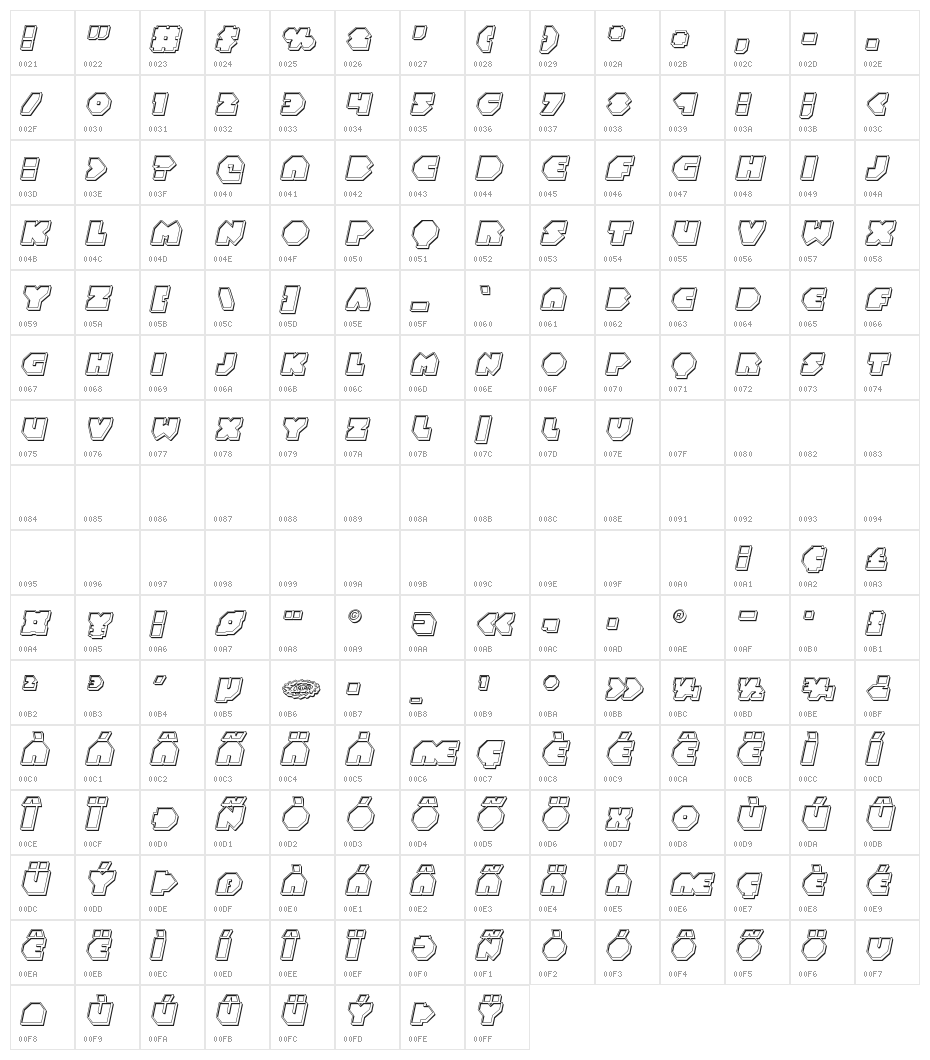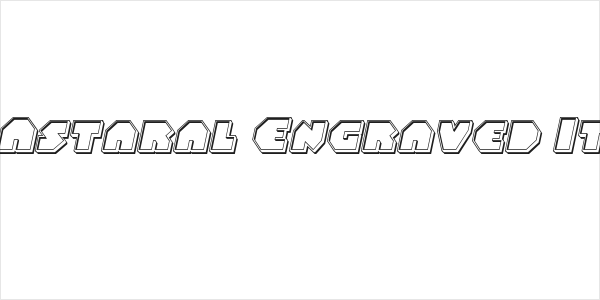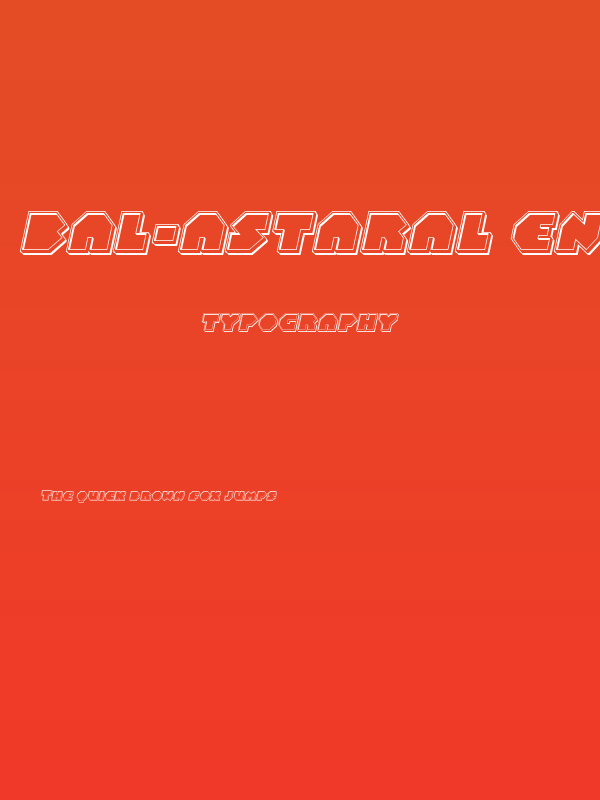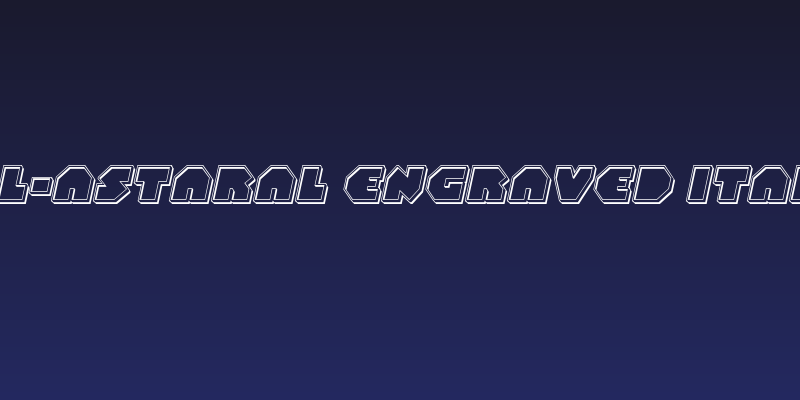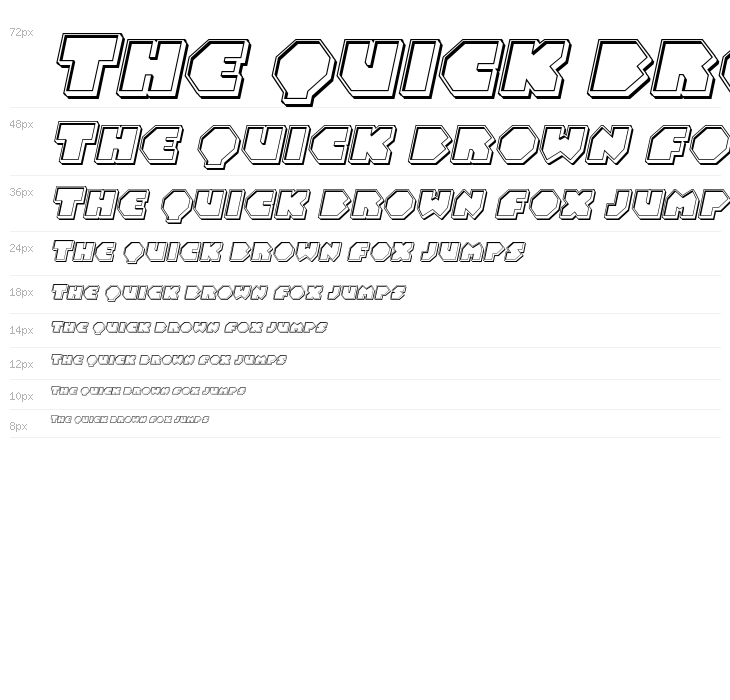
Bal-Astaral Engraved Italic Font
Bal-Astaral Engraved Italic Description
This font features a bold, geometric design with a three-dimensional engraved effect. The characters are outlined with a shadow that gives them a distinct, layered appearance. The uppercase and lowercase letters maintain a consistent style, emphasizing angular lines and sharp edges. The numerals and special characters follow the same design principles, ensuring uniformity across all glyphs. This font's unique style makes it stand out, with a futuristic and industrial aesthetic that is both eye-catching and versatile.
| Proposed Projects | Ideal for projects that require a futuristic or industrial look, such as tech branding, video game titles, or sci-fi themed posters. |